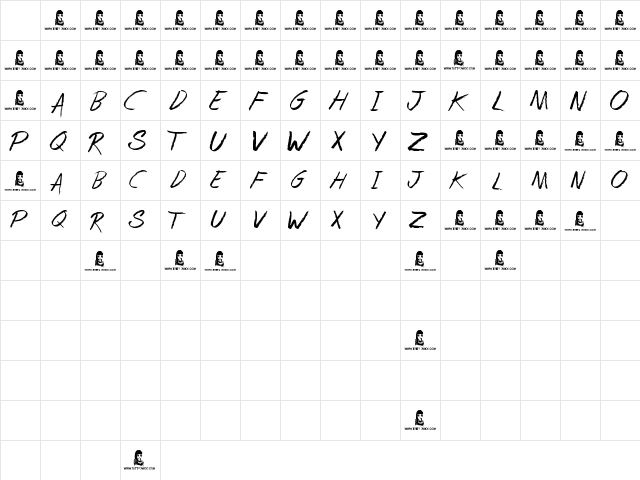
Spring Cleaning Regular Free Font
Spring Cleaning Regular
Design Context for Spring Cleaning
Spring Cleaning is a composed and adaptable typeface that performs quietly and consistently across a wide range of design contexts.